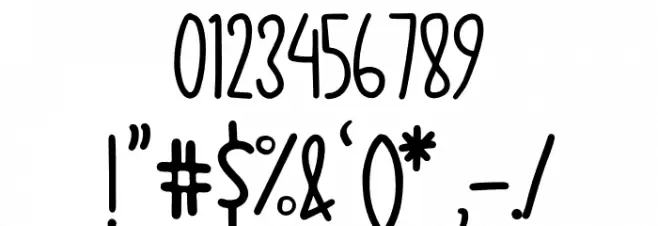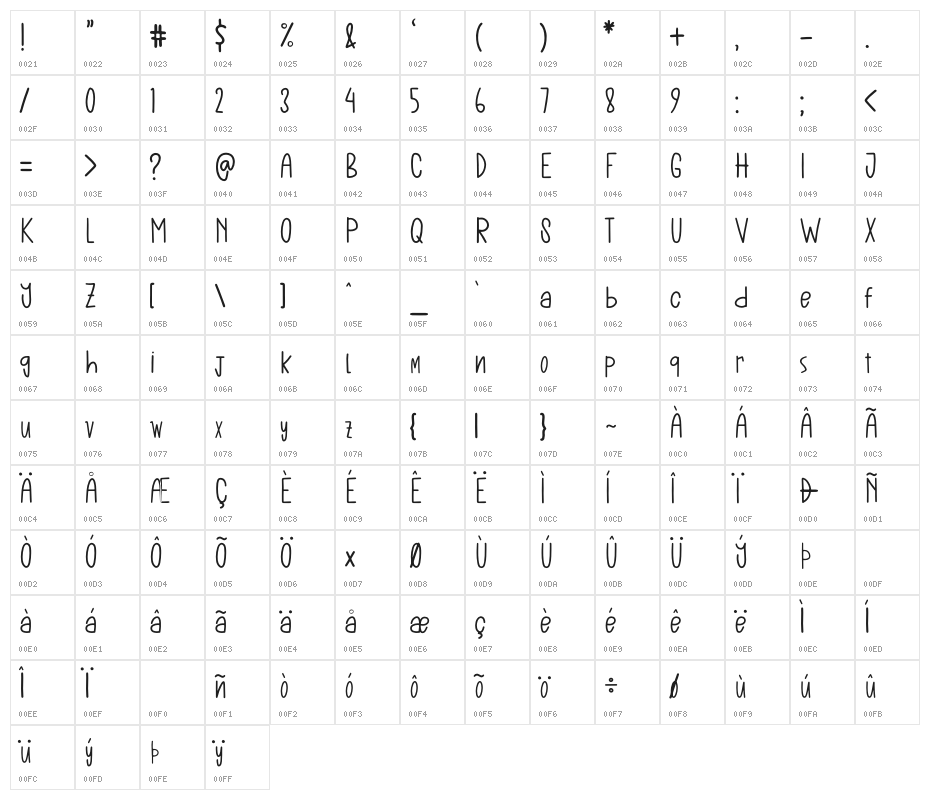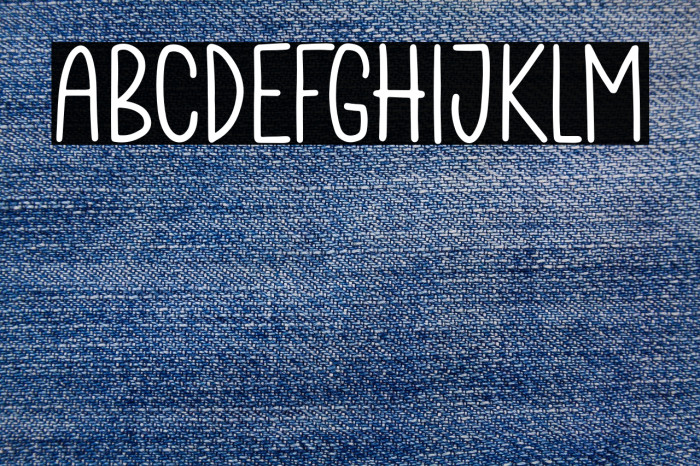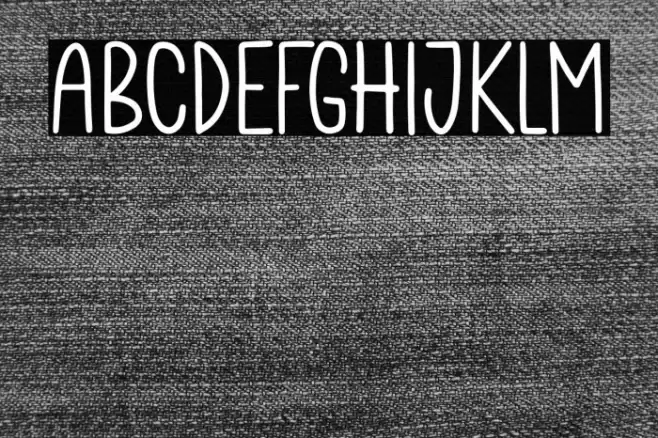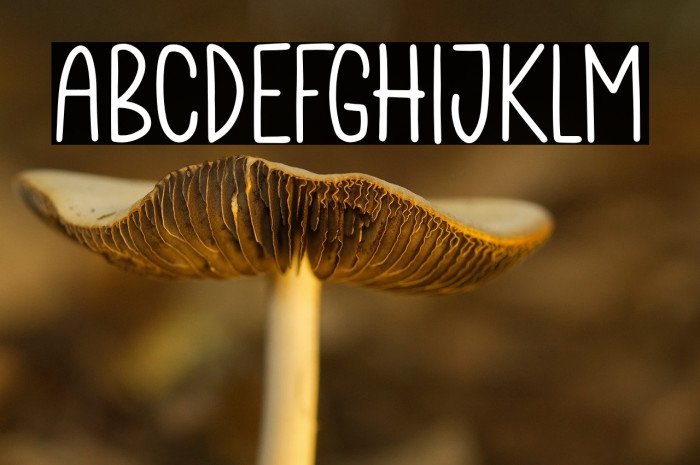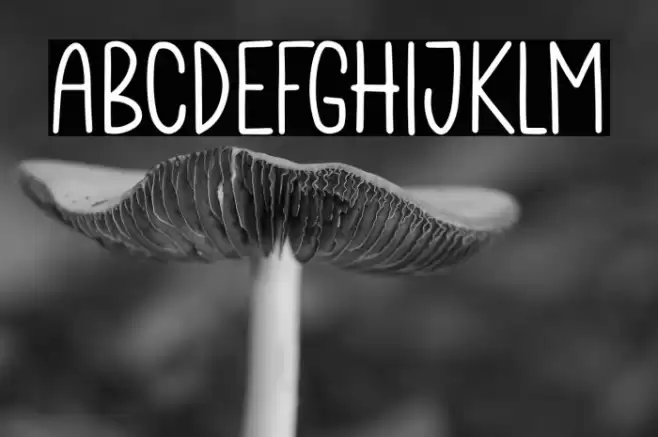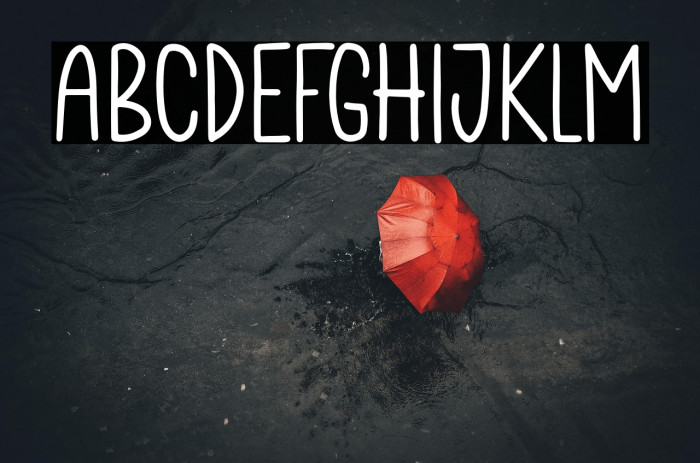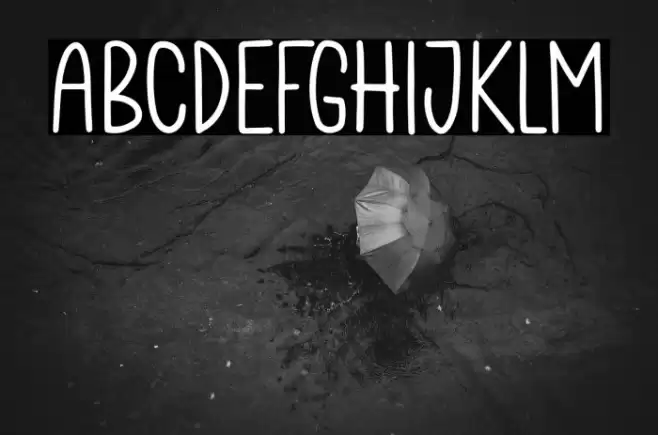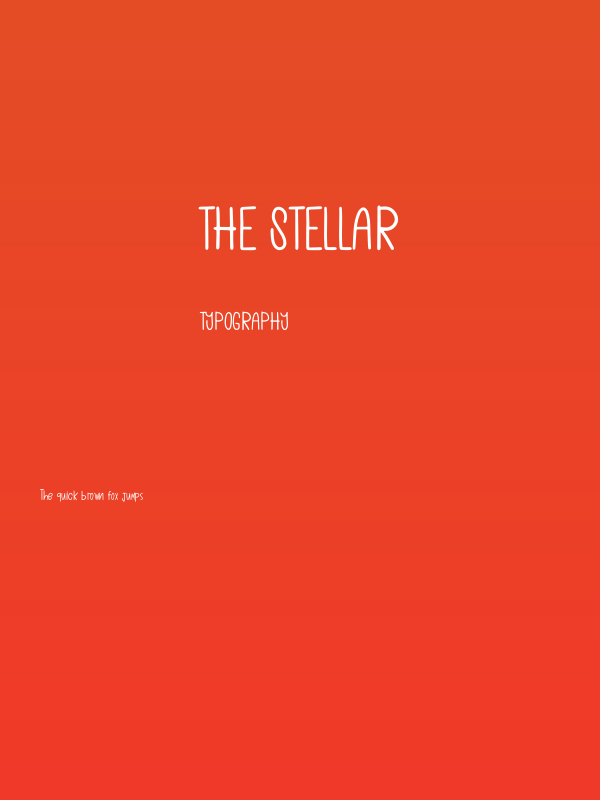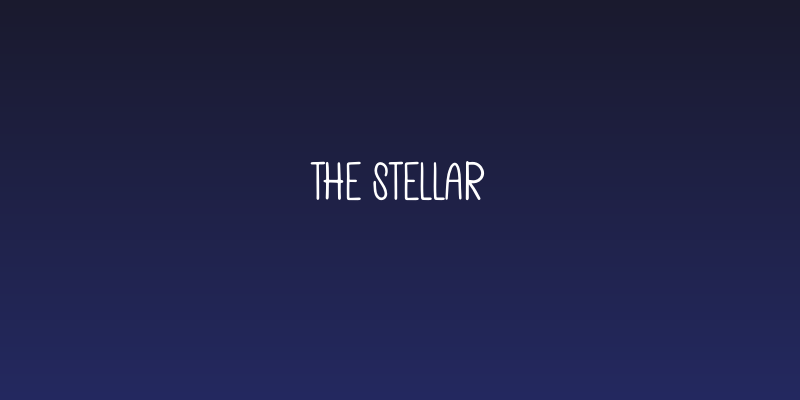
The Stellar Font
The Stellar Description
This font features a playful and informal handwritten style, characterized by its tall, narrow letters and slightly uneven baseline. The strokes are consistent in thickness, giving it a uniform appearance while maintaining a casual, friendly vibe. The uppercase letters are slightly taller than the lowercase, adding to the font's whimsical charm. The numbers and special characters follow the same style, ensuring a cohesive look across all text elements. This font is perfect for projects that require a personal touch, such as invitations, greeting cards, or playful branding.
Overall StyleCasual
Use CaseHeadlines, Logos, Informal Text
Proposed ProjectsIdeal for invitations, greeting cards, playful branding, and informal communications.